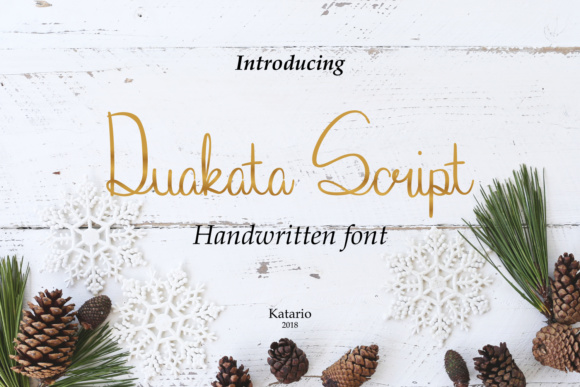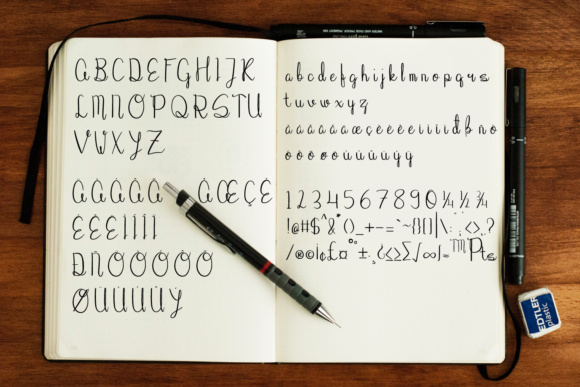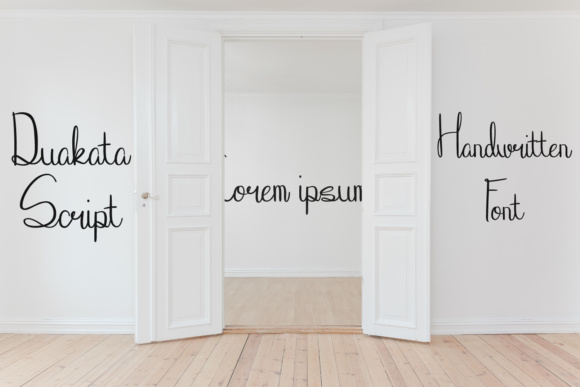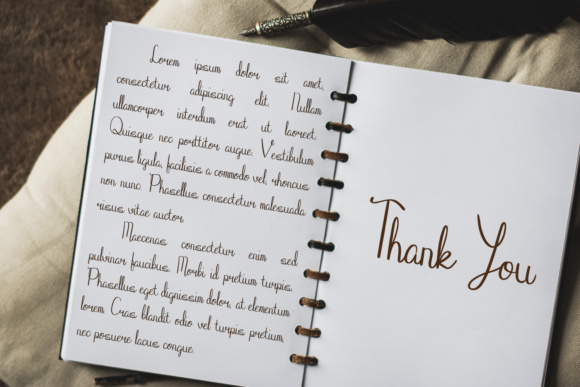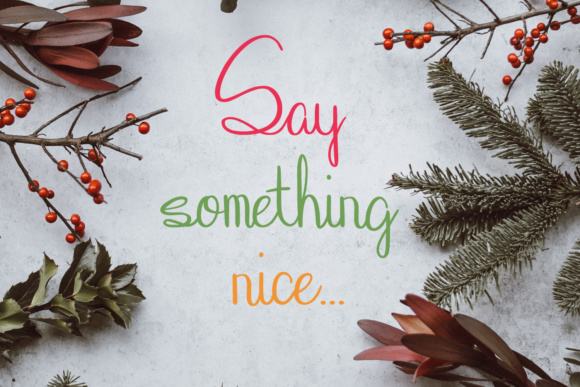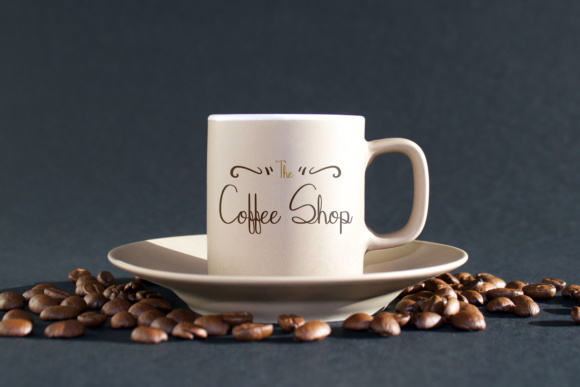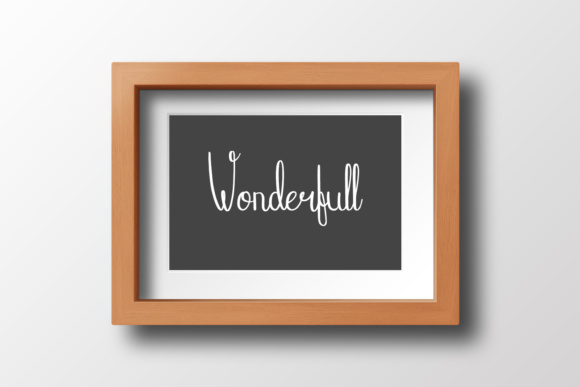
Duakata Font
About Duakata Font
Duakata is a natural, free-flowing handlettered script, ideal for use in a wide range of projects. This font pairs beautifully with san serif fonts, and can add a casual yet girly appeal to your work.